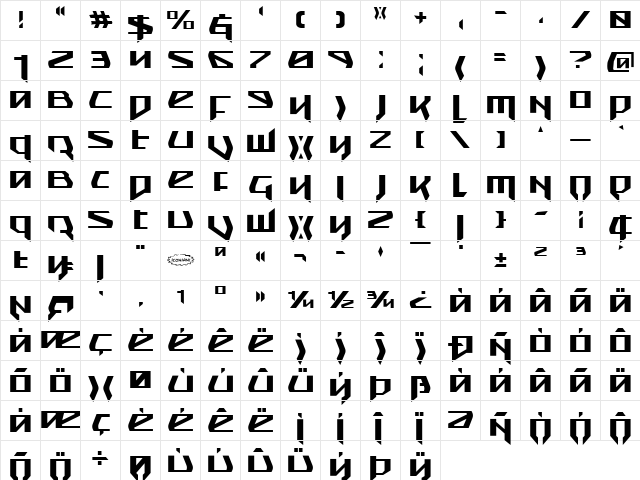
Snubfighter Regular
| Designer | Erikstormtrooper and Iconian Fonts |
Design Context for Snubfighter Typeface
Snubfighter is a composed and adaptable typeface that performs quietly and consistently across a wide range of design contexts.